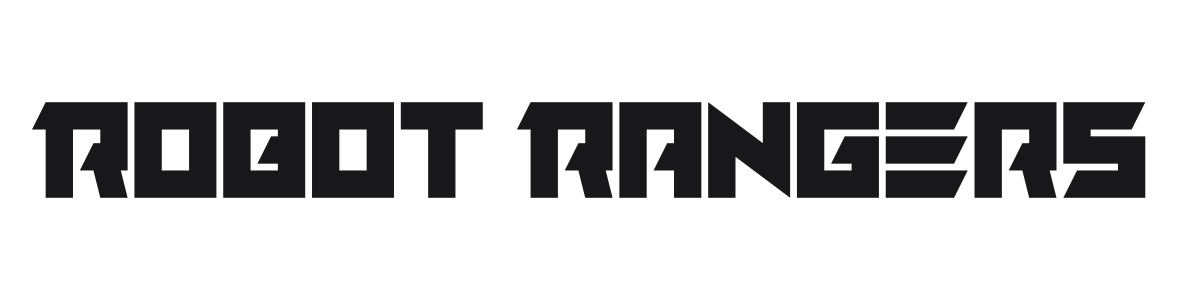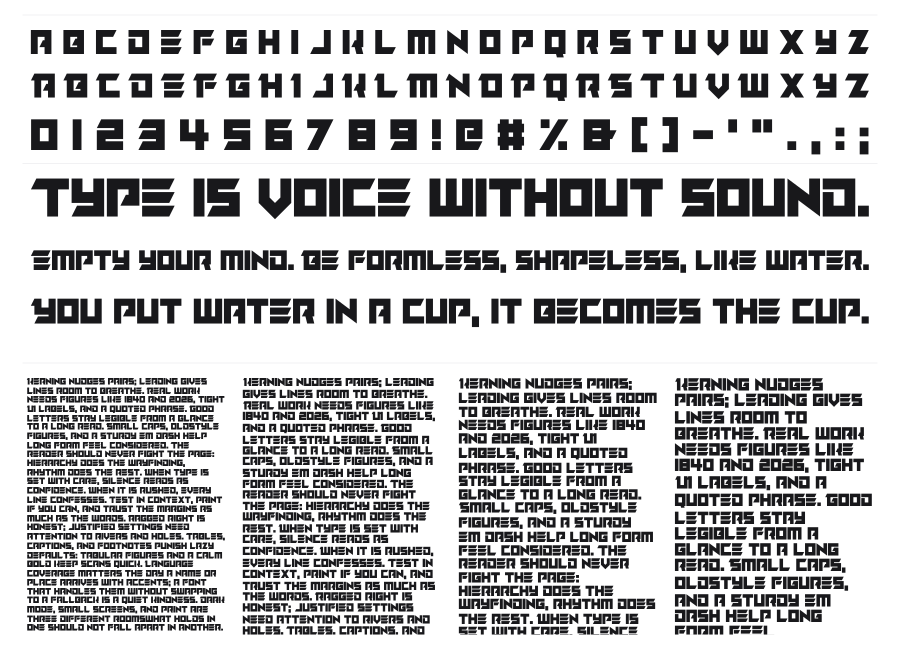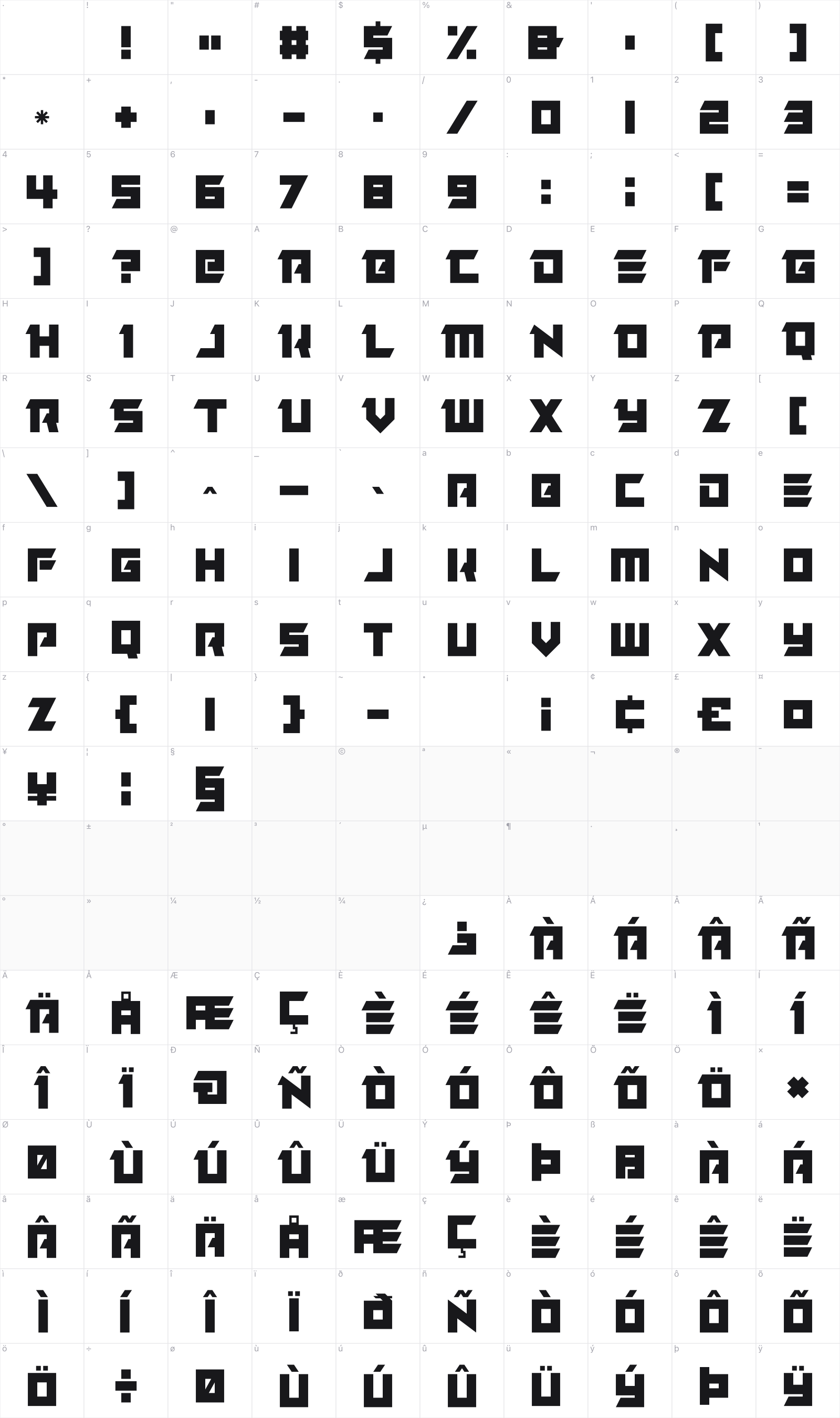
Robot Rangers
Robot Rangers is a heavy geometric display font built from angular, mechanical strokes with diagonal notches cut into terminals and junctions. The construction feels deliberately modular, like letters assembled from machine parts rather than drawn. It suits gaming titles, sci-fi branding, and any project that needs a forceful, futuristic edge.